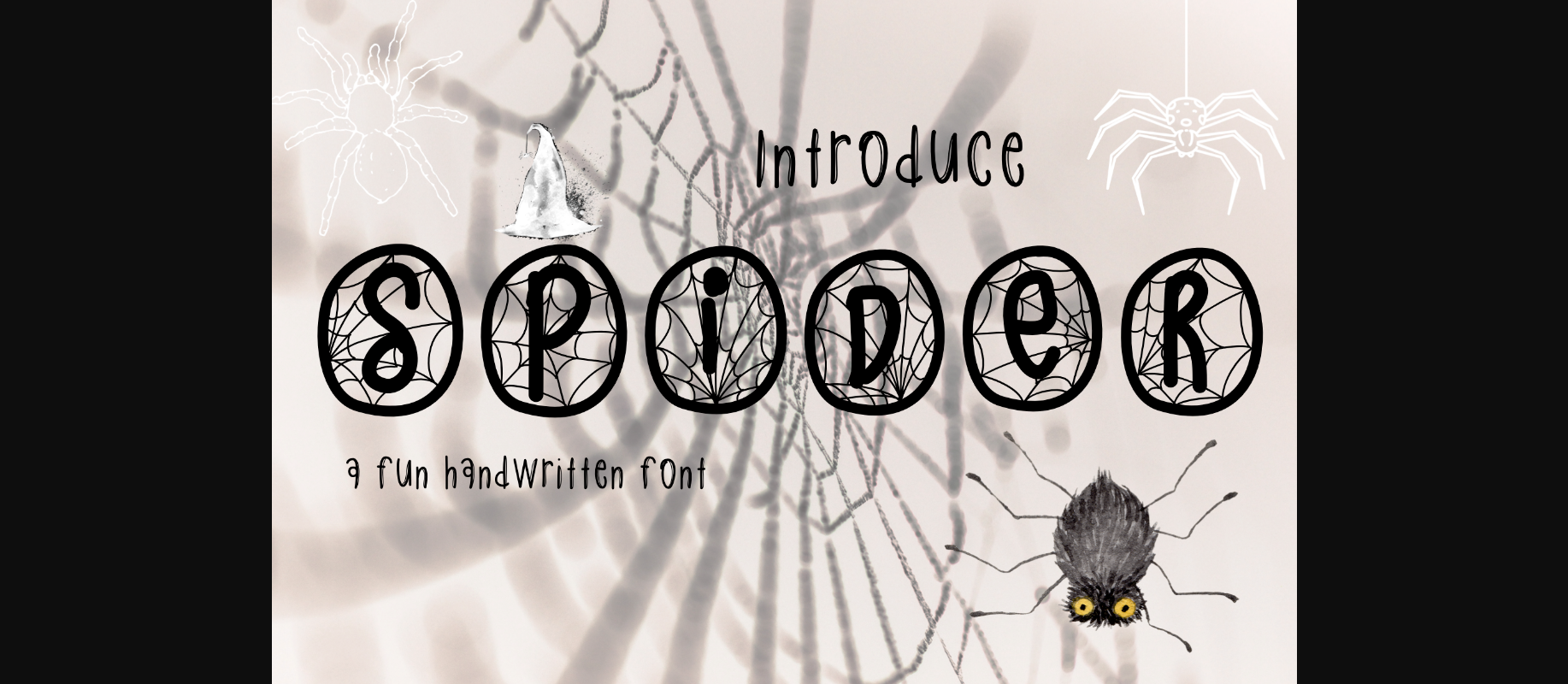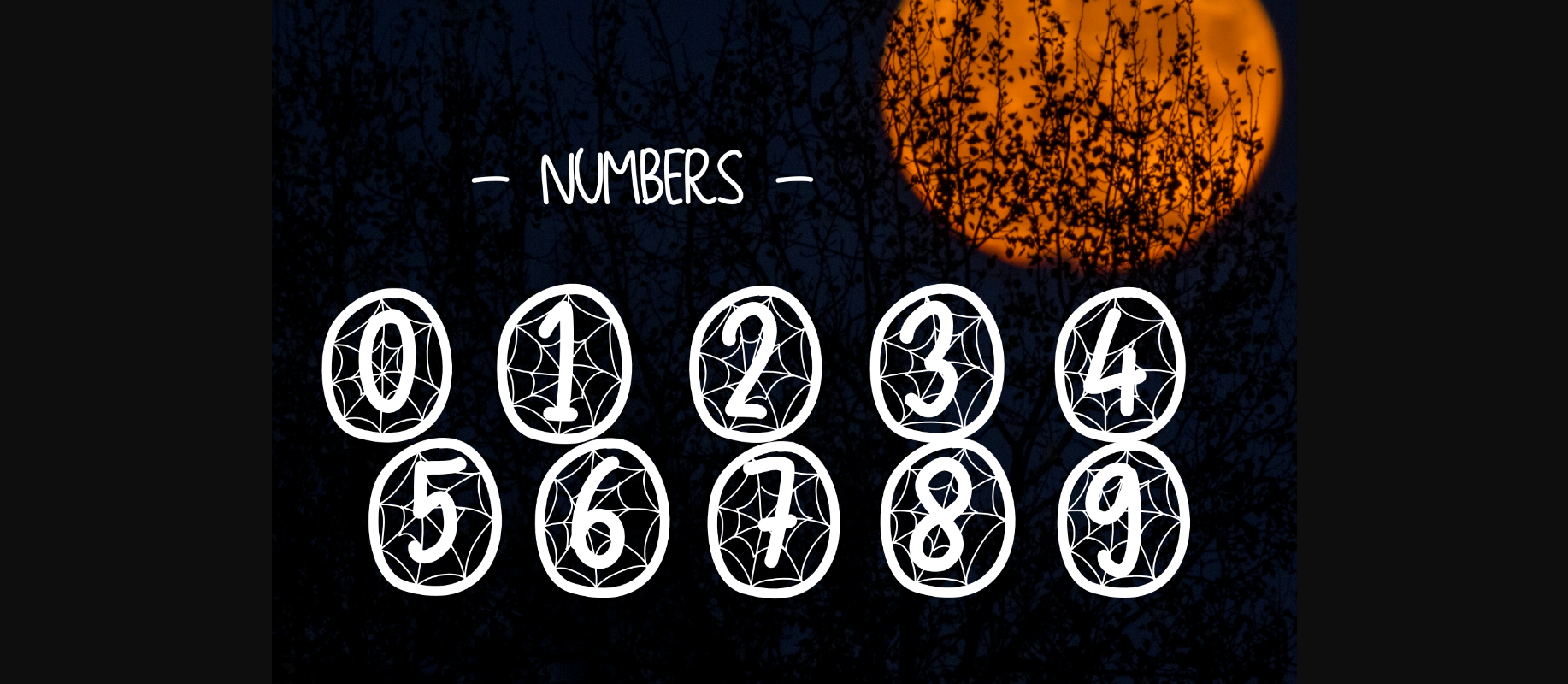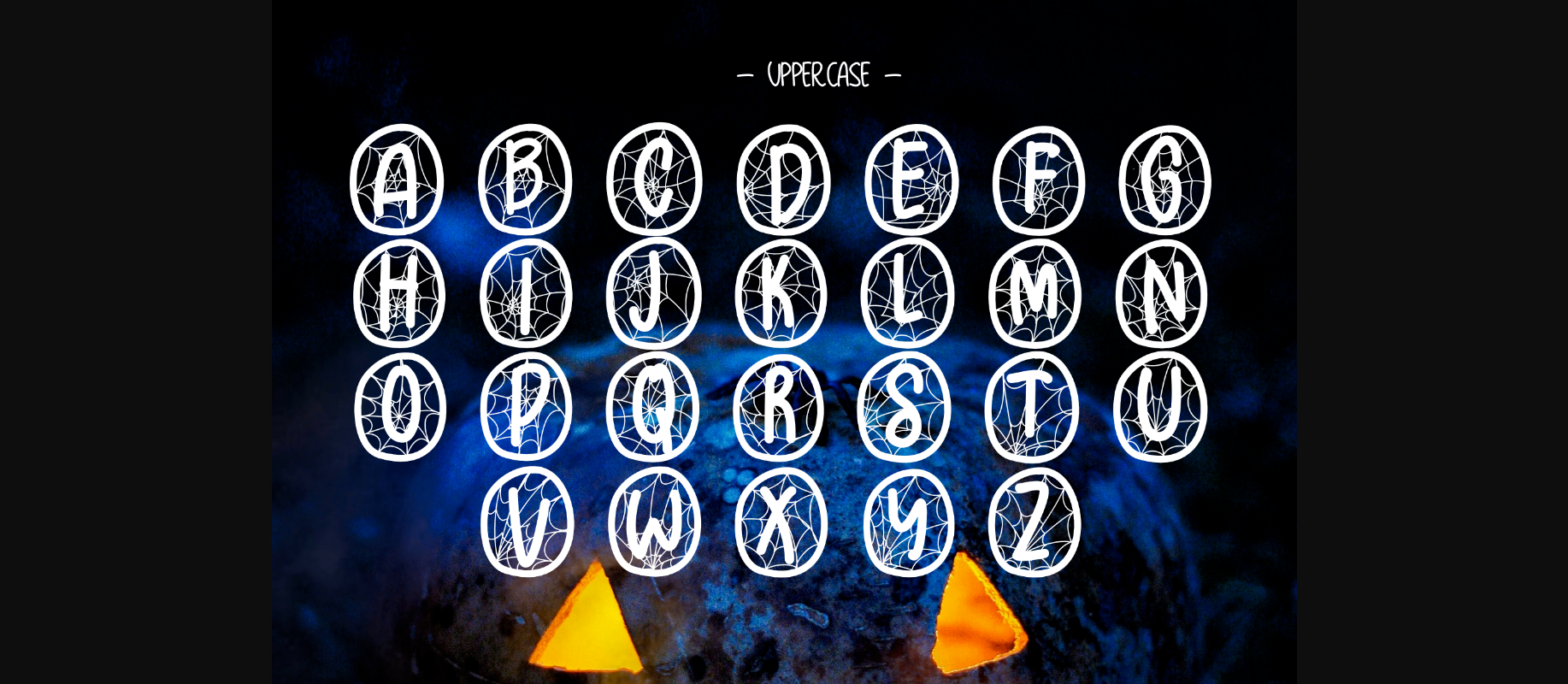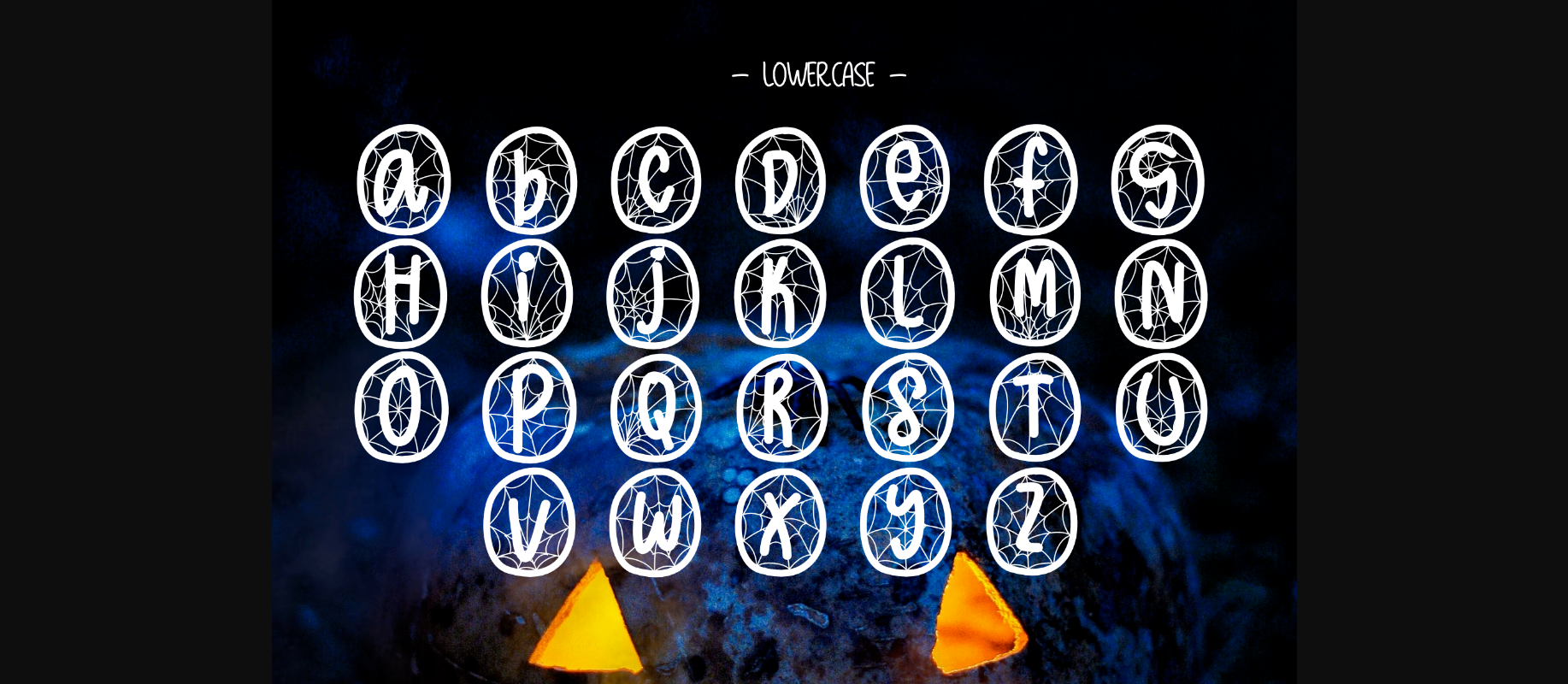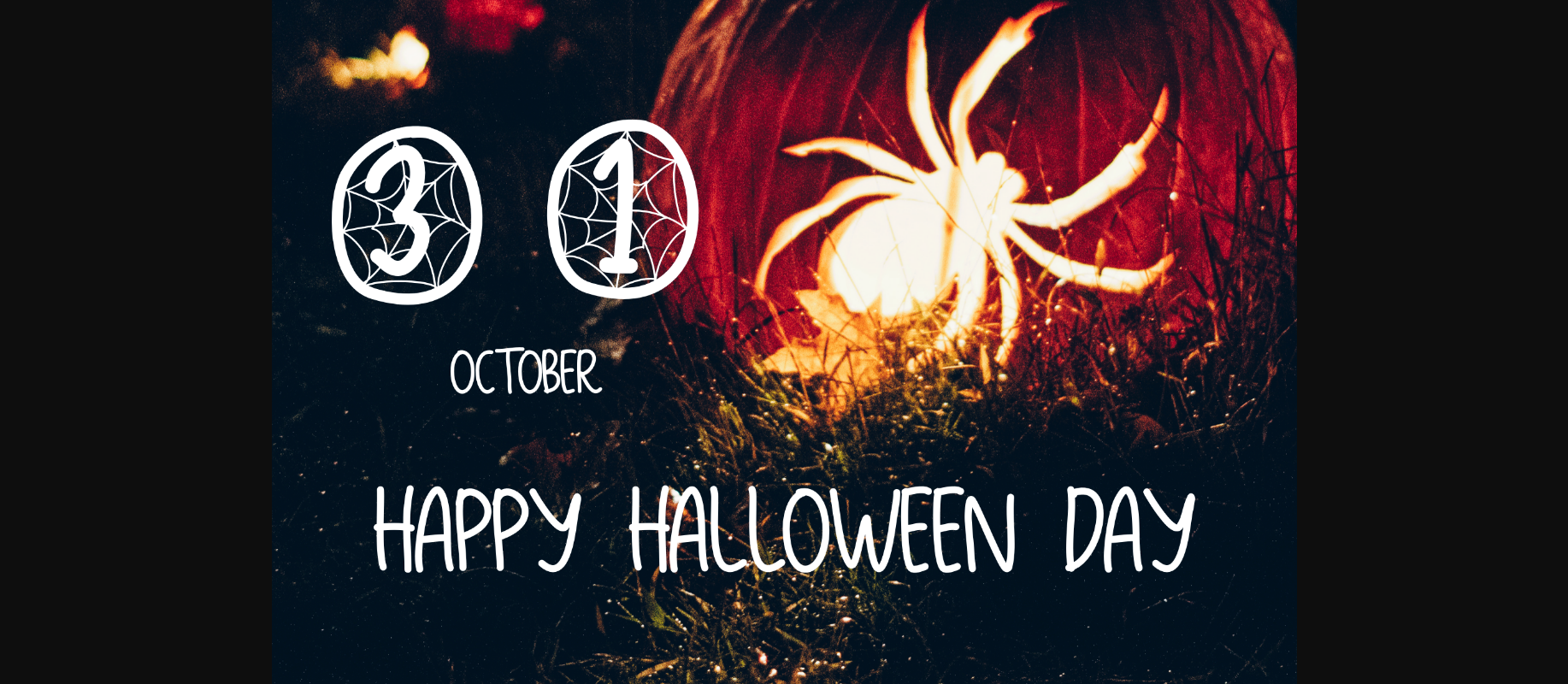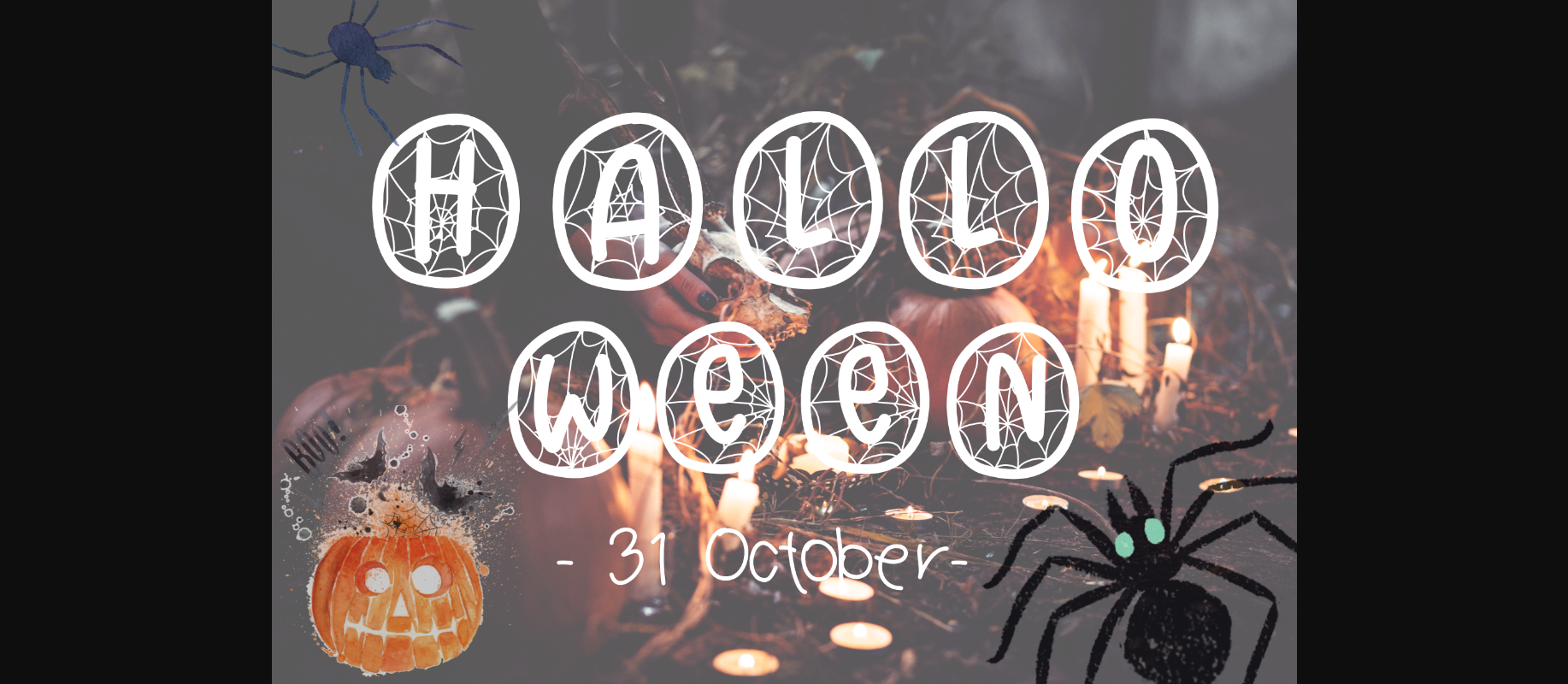
Spider Font
About Spider Font
Spider is an incredibly unique and cute decorative fonts. Masterfully designed to become a true favorite, this font has the potential to bring each of your creative ideas to the highest level!